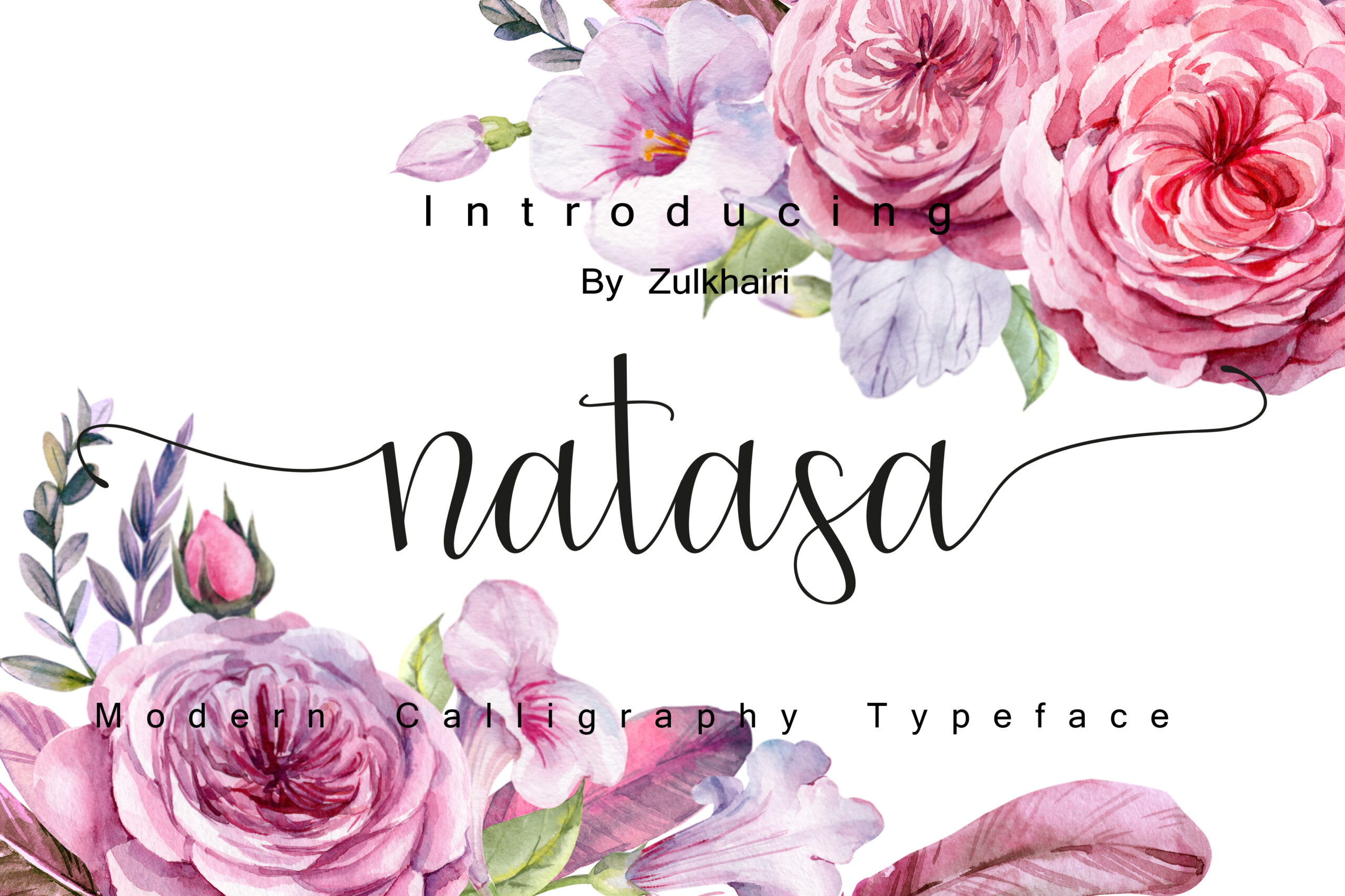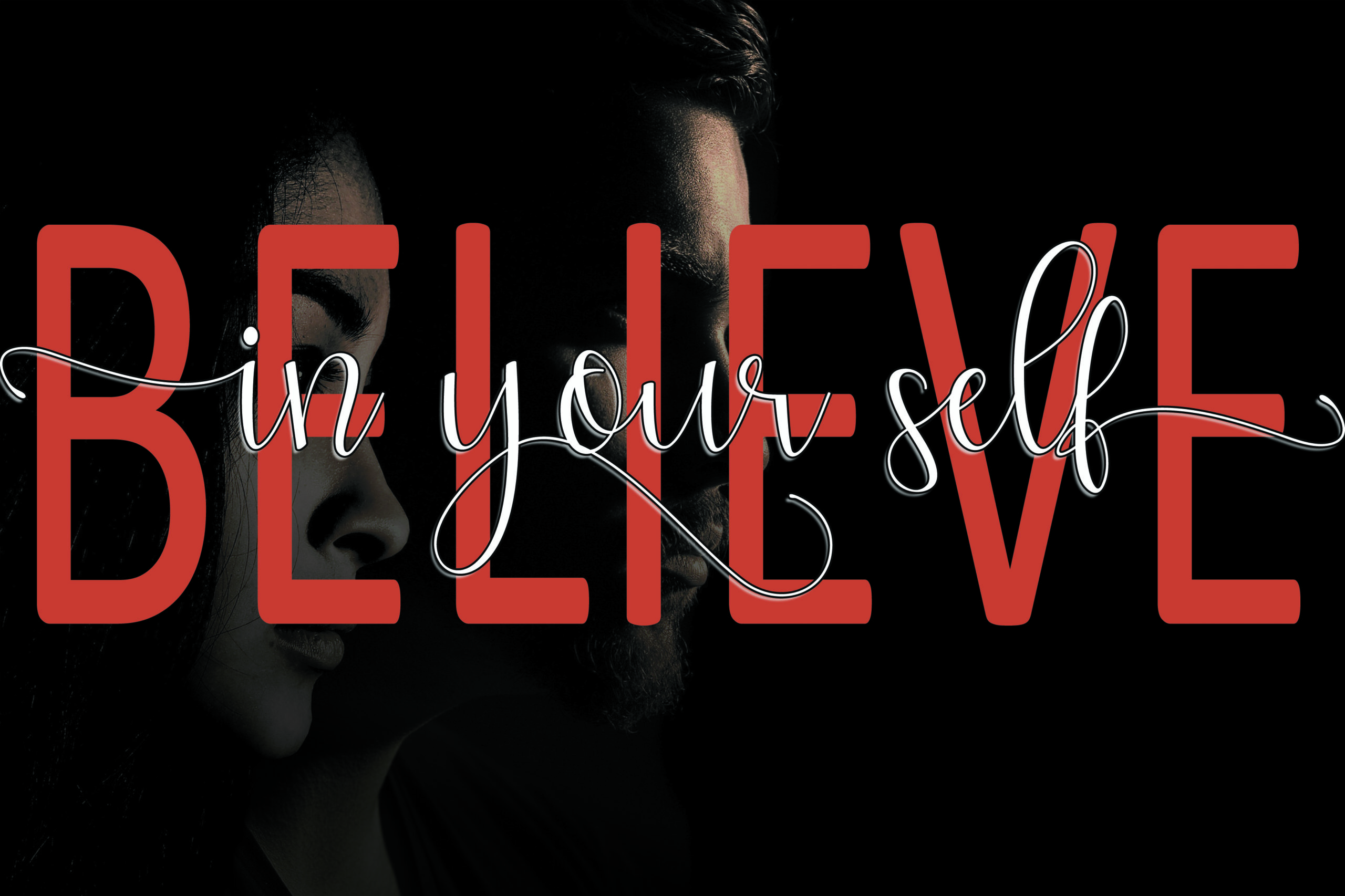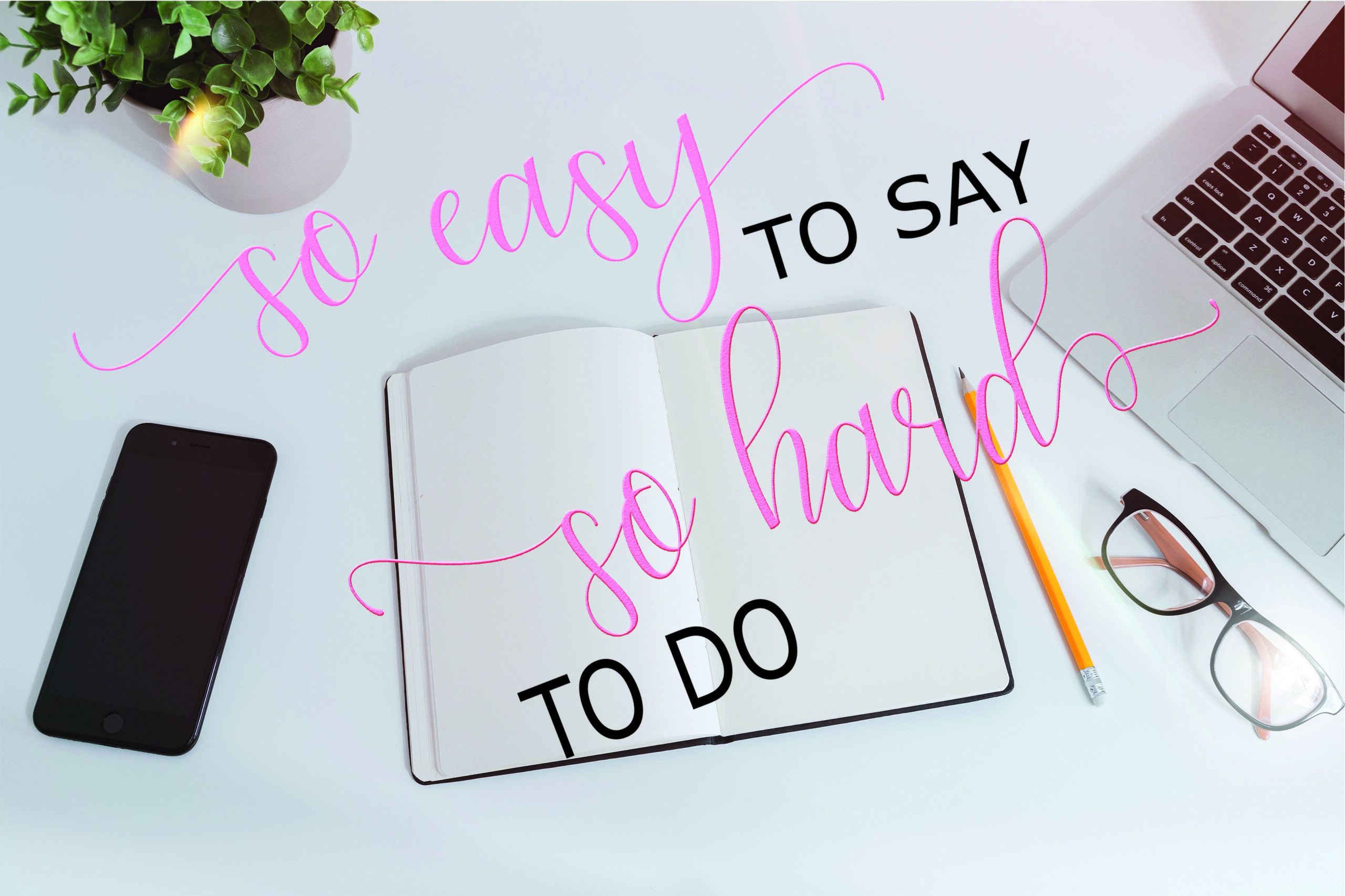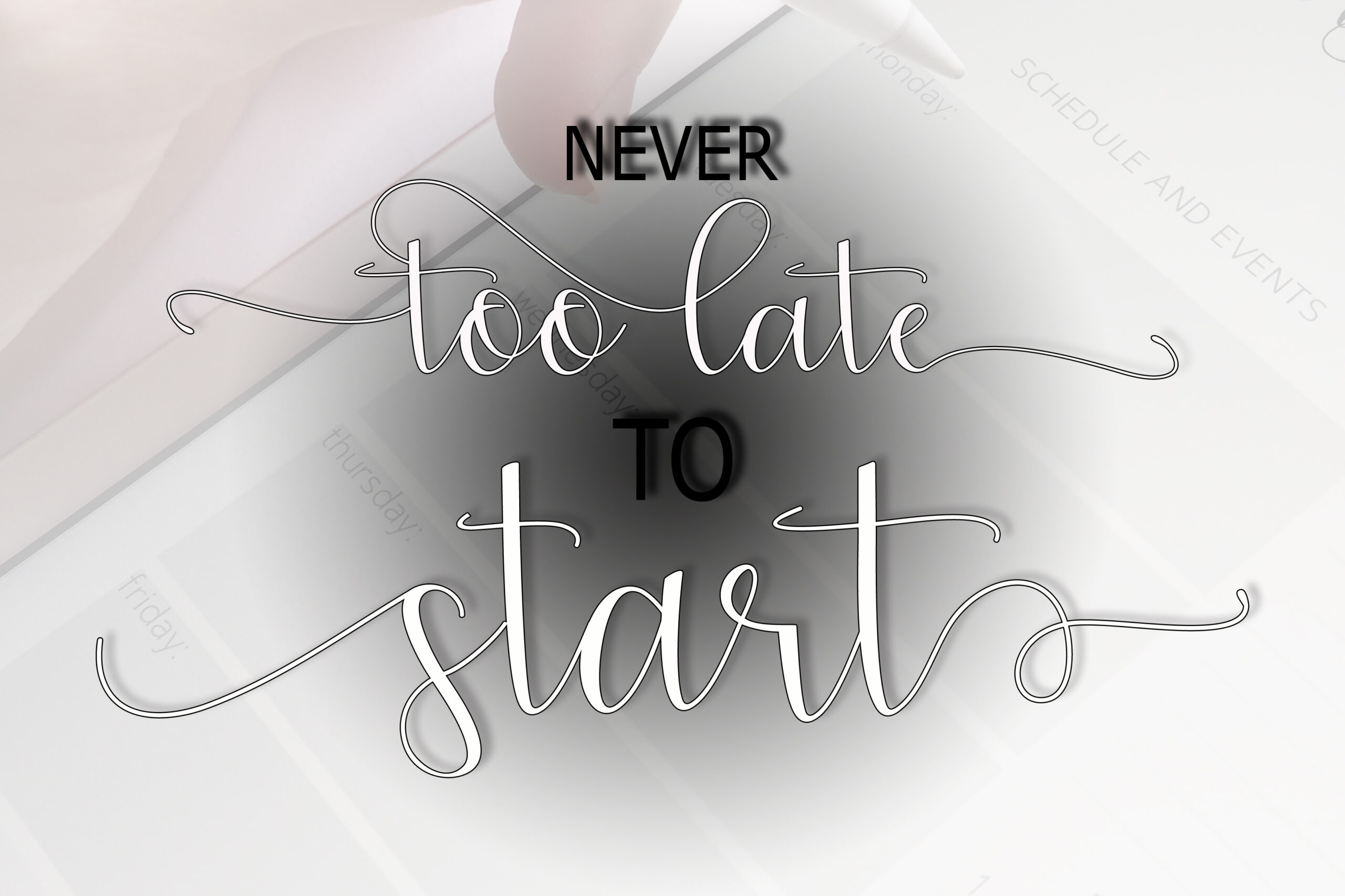
Natasa Font
About Natasa Font
Natasa is a beautiful script, crafted through hand-styled calligraphy. This is a modern and romantic font style, complete with decorative characters and a dancing baseline.